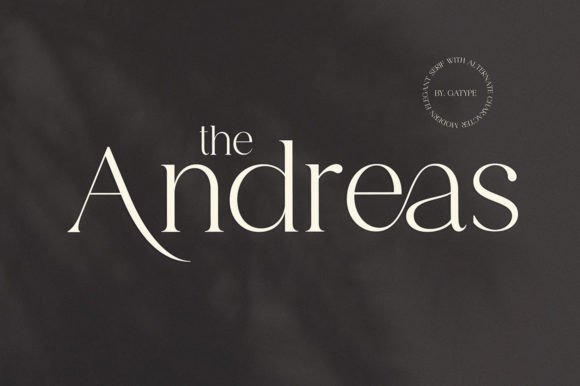
Welcome to the world of Andreas Font, a modern and stylish serif font that exudes sophistication and charm. With its crisp lines, elegant curves, and timeless appeal, Andreas is the perfect choice for those seeking a touch of distinction in their designs.
Andreas' strength lies in its versatility, effortlessly adapting to a wide range of design projects. Whether you're crafting a captivating logo, designing a visually stunning poster, creating unique t-shirts, or inviting guests to a special event, Andreas rises to the occasion. Its timeless beauty adds an air of sophistication to branding, while its playful spirit shines through in designs for kids. Andreas' versatility extends to editorial designs, where its classic elegance elevates the written word.
Beyond its versatility, Andreas captivates with its emotional appeal. Its graceful curves and serifs evoke a sense of nostalgia and warmth, while its modern design keeps it relevant and contemporary. Andreas has the power to evoke emotions, create connections, and leave a lasting impression on your audience. This font is not just a collection of letters; it's an expression of creativity, a tool to bring your visions to life.
Andreas is the brainchild of gatype, a renowned font foundry known for their meticulous attention to detail and commitment to excellence. With Andreas, gatype has created a font that is both visually stunning and functionally versatile. Trust Andreas to elevate your designs, leaving an unforgettable mark on your audience.